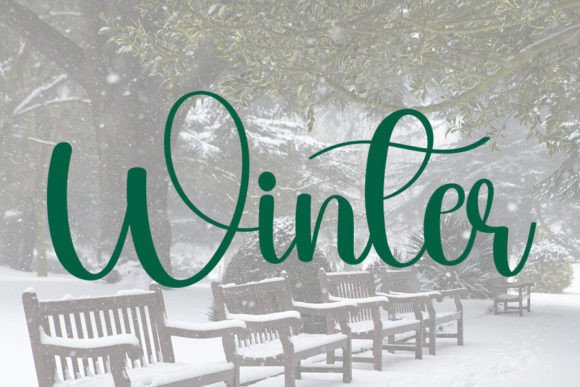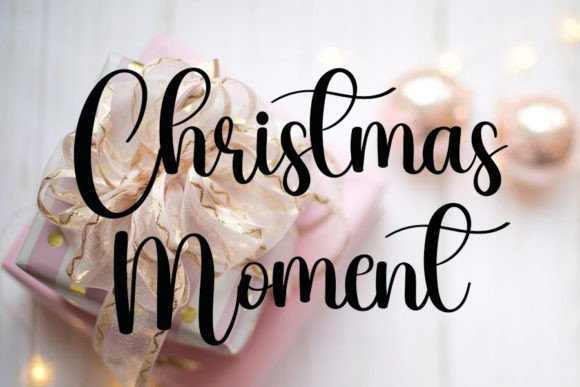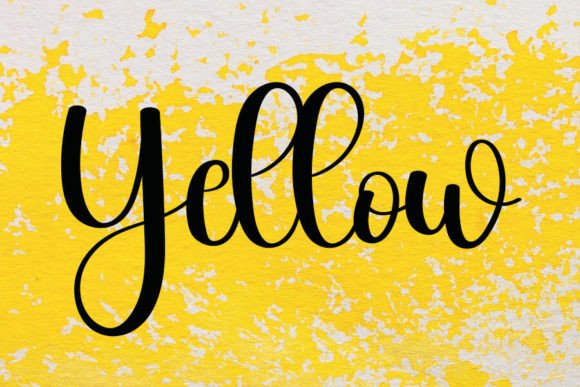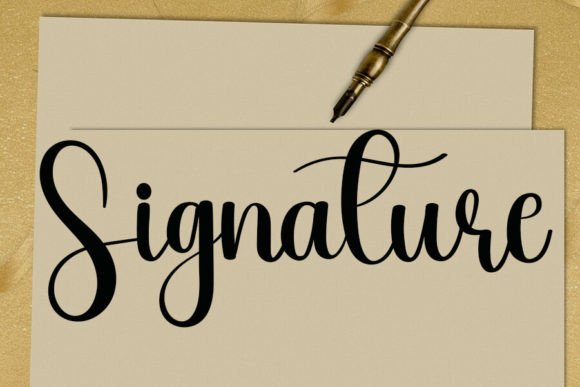
Introducing Christmas Jungle Font: A Sweet and Friendly Handwritten Delight
Are you on the hunt for a font that captures the essence of the holiday season with a twist? Look no further than the Christmas Jungle Font! This sweet and friendly handwritten font is perfect for designers and crafters seeking to add a personal touch to their projects. With its natural and unique style, Christmas Jungle Font is incredibly versatile and can be used for a wide range of designs.
The Perfect Blend of Whimsy and Charm
Christmas Jungle Font boasts a distinctive, hand-crafted look that sets it apart from more traditional fonts. Its whimsical charm and friendly demeanor make it an ideal choice for holiday-themed projects, such as Christmas cards, gift tags, and festive posters. However, its versatility means it can also be used for a variety of other designs, from party invitations to social media graphics.
Endless Possibilities
The only limit to using Christmas Jungle Font is your imagination! Whether you’re a designer looking to create something special for your clients or a crafter seeking to add a personal touch to your holiday gifts, this font is sure to inspire. Use it to:
- Create eye-catching holiday cards and invitations
- Design festive posters and flyers
- Develop engaging social media graphics and posts
- Make personalized gift tags and wrapping paper
- And so much more!
What Makes Christmas Jungle Font So Special?
So, what sets Christmas Jungle Font apart from other fonts on the market? Here are just a few reasons why designers and crafters are falling in love with this sweet and friendly font:
- Unique and Handwritten Style: Christmas Jungle Font boasts a distinctive, hand-crafted look that’s perfect for adding a personal touch to your designs.
- Natural and Friendly Vibe: This font exudes a warm and welcoming feel, making it perfect for holiday-themed projects and designs.
- Highly Versatile: From festive posters to social media graphics, Christmas Jungle Font can be used for a wide range of designs.
Tips for Using Christmas Jungle Font
To get the most out of Christmas Jungle Font, here are a few tips to keep in mind:
- Experiment with Different Sizes and Colors: Don’t be afraid to play around with different sizes and colors to find the perfect combination for your design.
- Pair it with Other Fonts: Christmas Jungle Font pairs well with a variety of other fonts, so don’t be afraid to get creative and experiment with different combinations.
- Use it to Add a Personal Touch: This font is perfect for adding a personal touch to your designs, so use it to make your projects stand out.
If you’re looking for a font that’s sure to add a touch of whimsy and charm to your designs, look no further than Christmas Jungle Font. With its unique and handwritten style, natural and friendly vibe, and high versatility, this sweet and friendly font is perfect for designers and crafters of all skill levels. So why wait? Download Christmas Jungle Font today and let your imagination run wild!